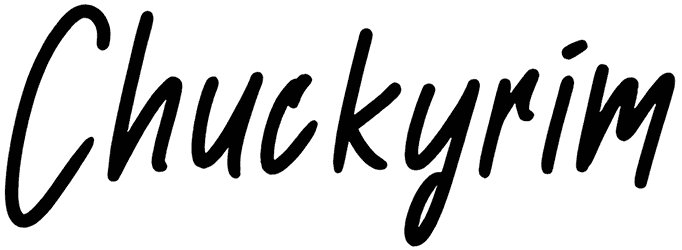
Chuckyrim Font
Some fonts feel like they were pulled straight out of nostalgia, and that’s exactly where Chuckyrim shines. This typeface carries a subtle confidence that feels both bold and familiar, like lettering you might see on retro packaging, comic‑inspired posters, or expressive display headlines. It doesn’t blend into the background; it demands attention without shouting, which makes it ideal for headlines, posters, event branding, youth‑oriented graphics, and anything that needs personality up front.
The charm isn’t just in its shape; it’s in how naturally this handwritten font makes a message feel alive, energetic, and unmistakably intentional. Sometimes the right font doesn’t just read; it speaks.